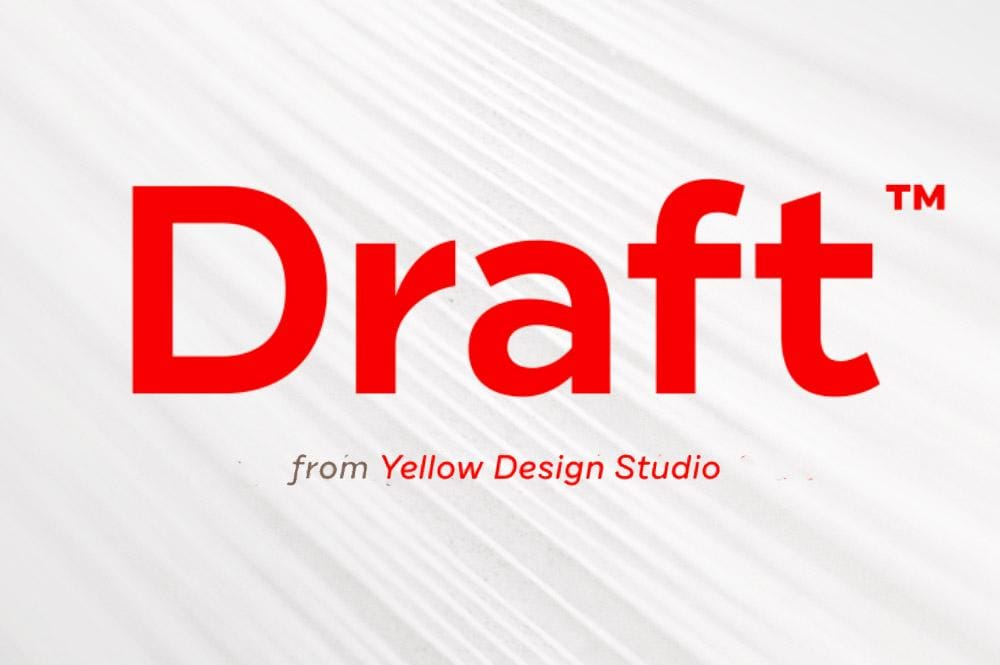
Discover two free weights from the Draft sans-serif superfamily, a modern typeface that stands out with its energetic design. With a total of 144 fonts available across eight widths, Draft ensures you have the flexibility needed for any project.
This superfamily is ideal for both digital and print applications, allowing for fine-grain control over typography. Whether you are working on branding, web design, or editorial layouts, Draft provides the versatility to meet your creative needs.
Embrace a typeface that combines contemporary aesthetics with functionality. Enjoy the freedom to express your ideas with Draft, and make your text not just readable, but engaging. Grab your free weights today and enhance your typographic toolkit.